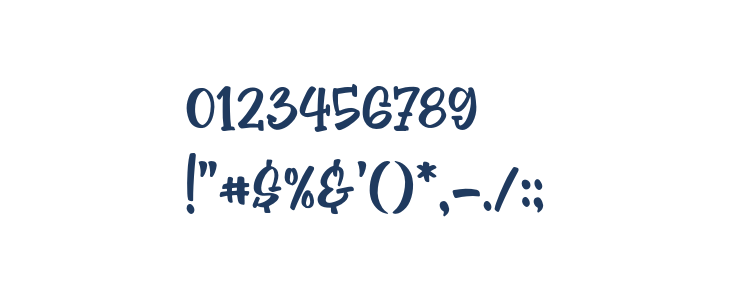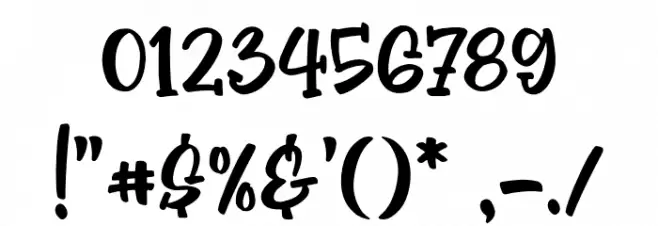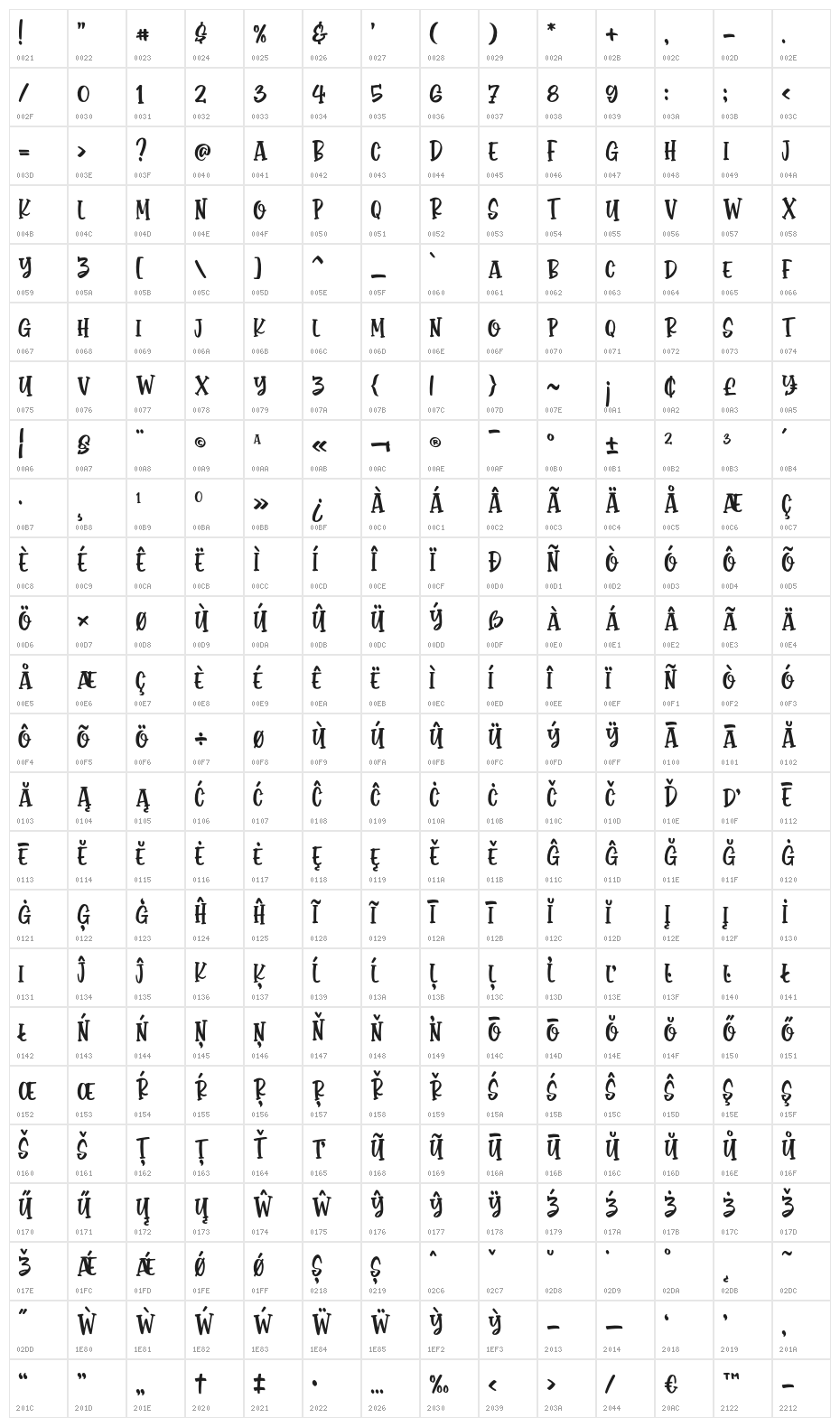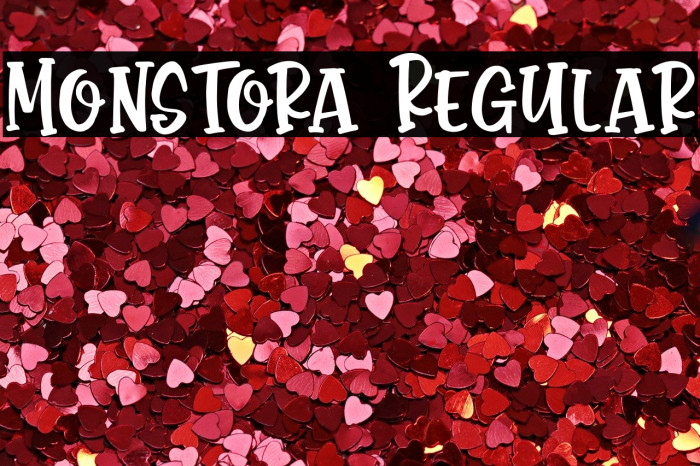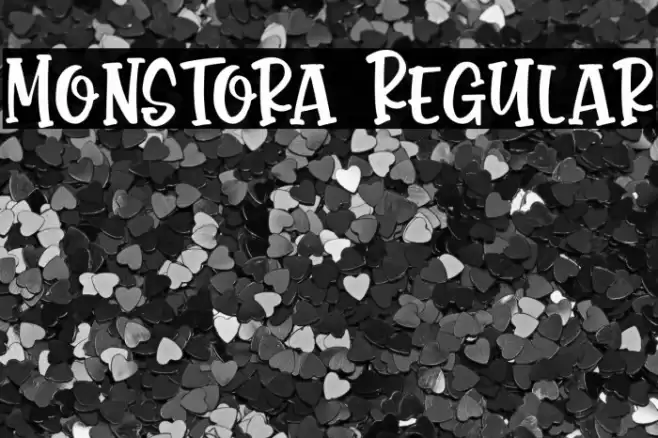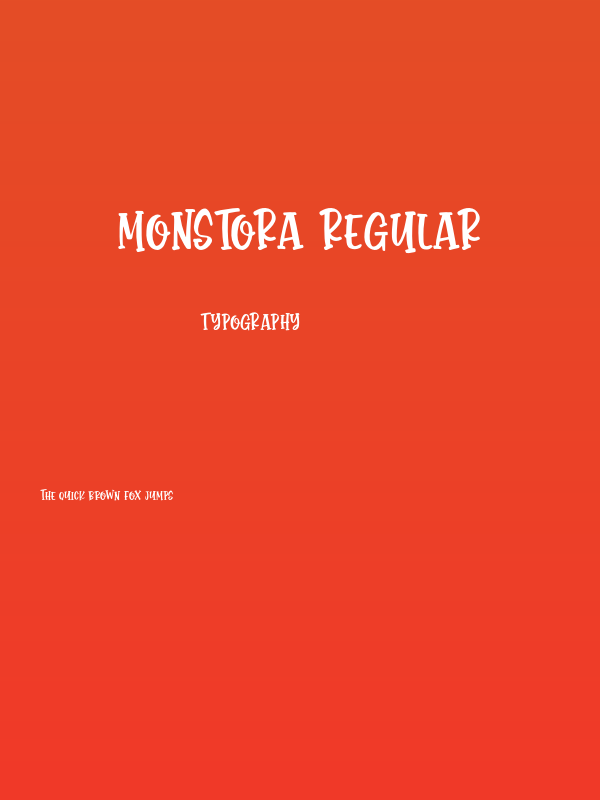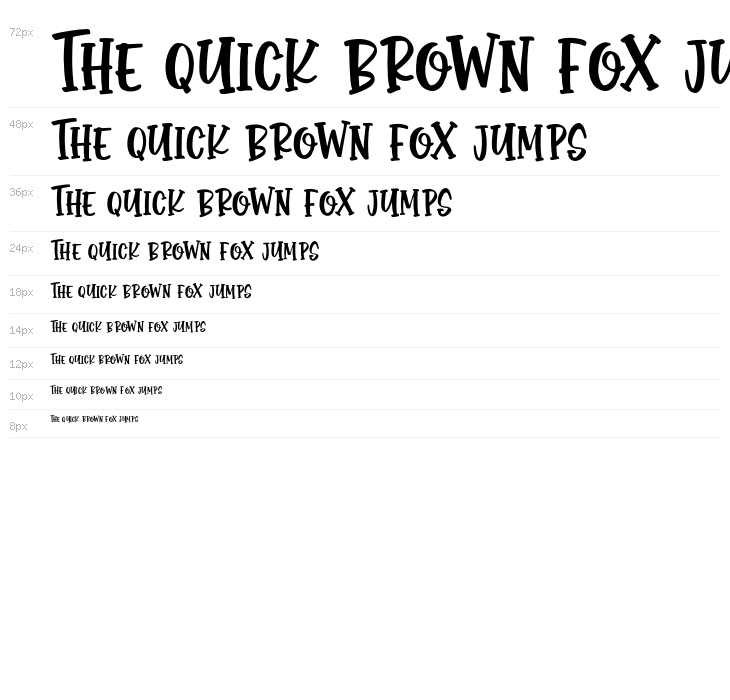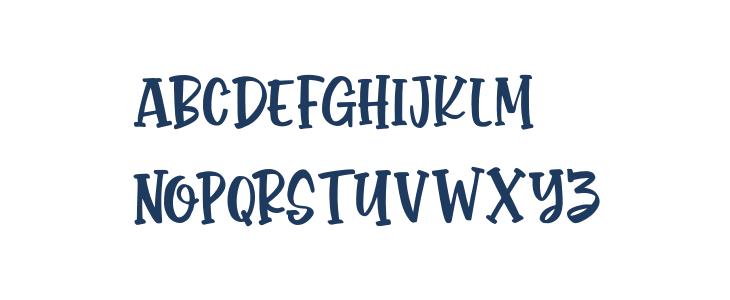
Monstora Regular Font
Monstora Regular Description
This font features a playful and bold design with a hand-drawn aesthetic. The letters are slightly irregular, giving it a whimsical and casual feel. The strokes are thick and rounded, providing a friendly and approachable appearance. The uppercase and lowercase letters maintain a consistent style, with a slight slant that adds to the dynamic look. The numbers and special characters are designed to match the overall playful theme, making it suitable for creative and informal projects.